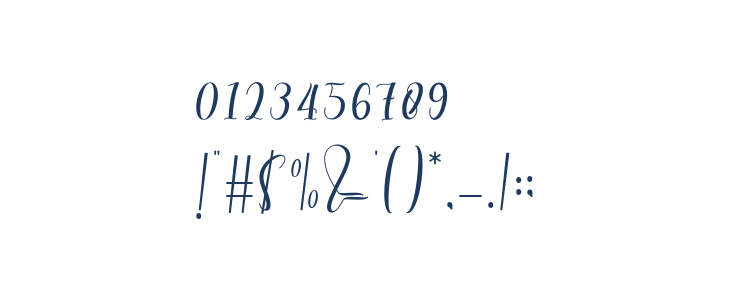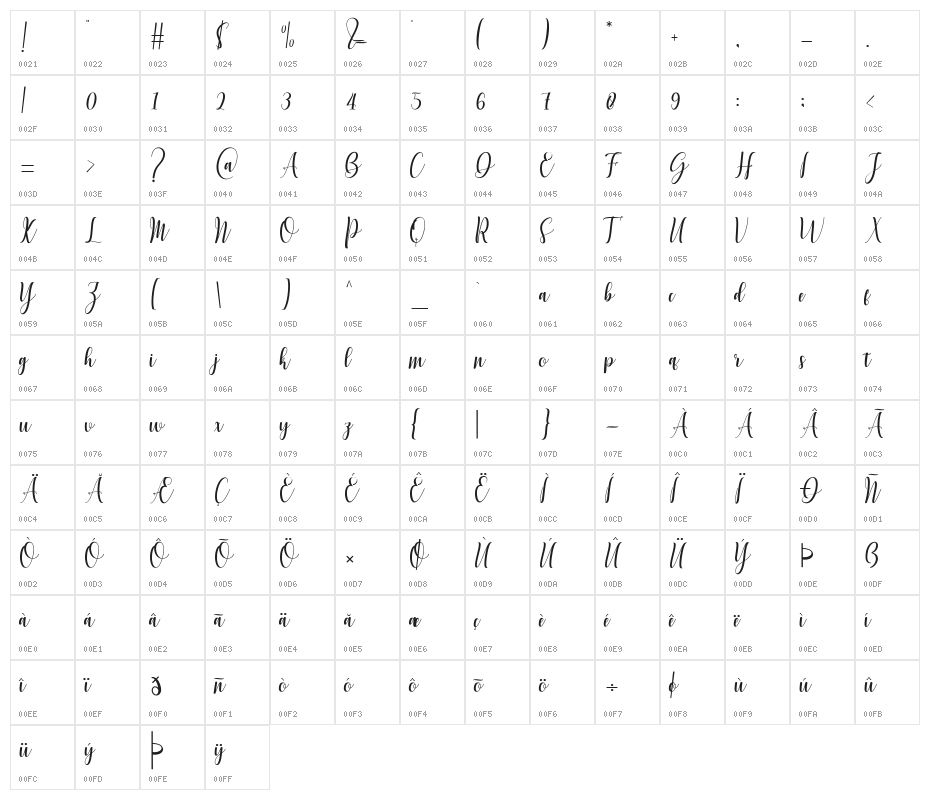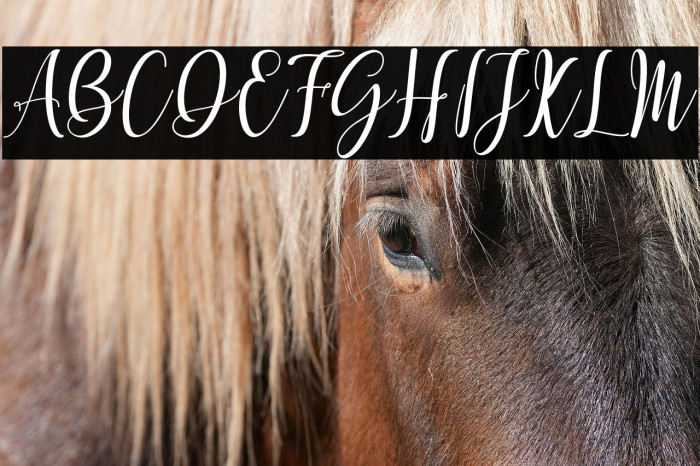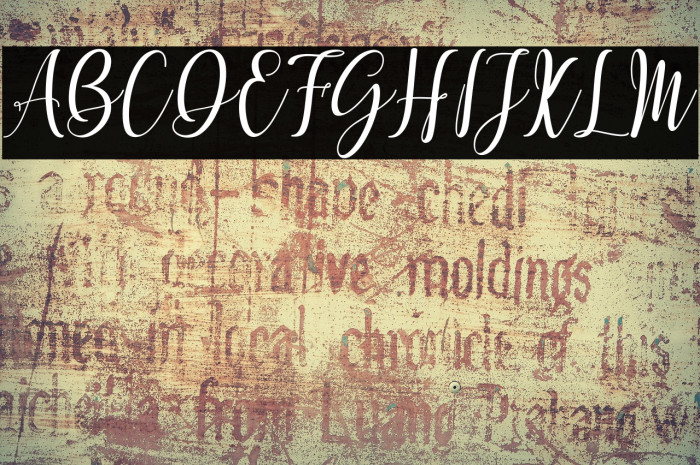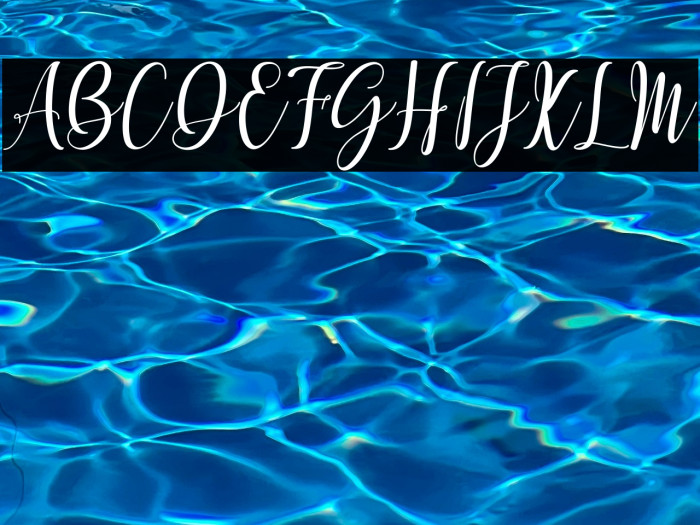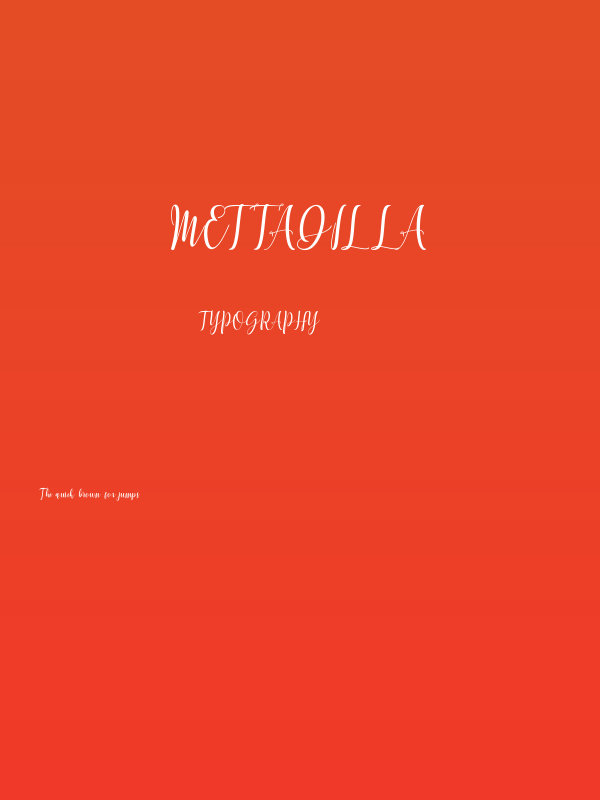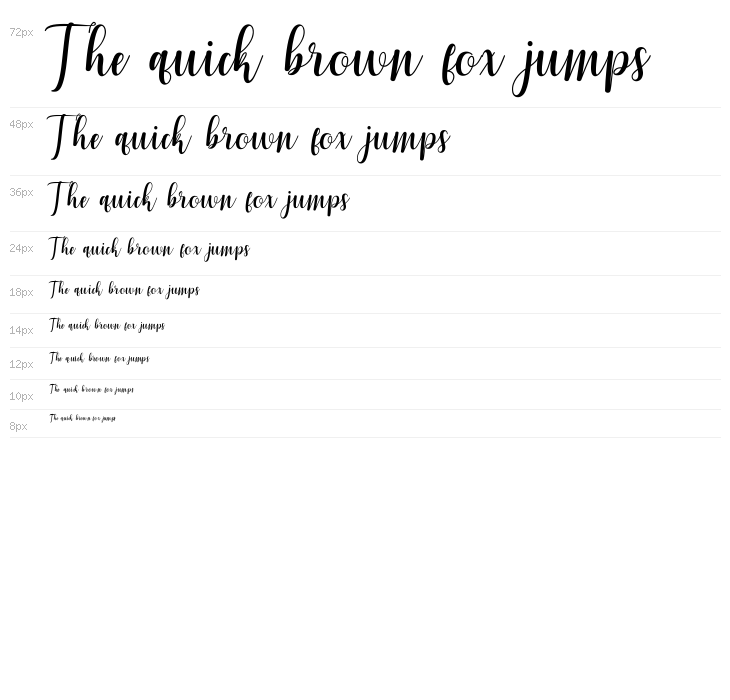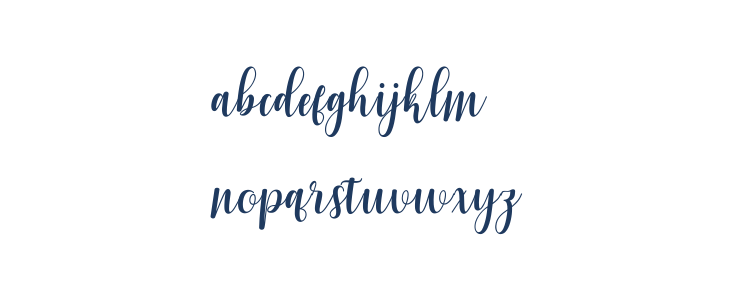
Mettadilla Font
Mettadilla Description
This font features an elegant and flowing script style, characterized by its smooth, cursive strokes and artistic flair. The uppercase letters are tall and graceful, with sweeping curves and loops that give them a sense of movement and sophistication. The lowercase letters maintain a consistent style, offering a harmonious blend of thick and thin lines that enhance readability while retaining a decorative touch. Numbers and special characters are crafted with the same attention to detail, ensuring a cohesive look across all elements. The font's overall aesthetic is both modern and classic, making it versatile for various design applications.
| Overall Style | Elegant, Modern, Classic |